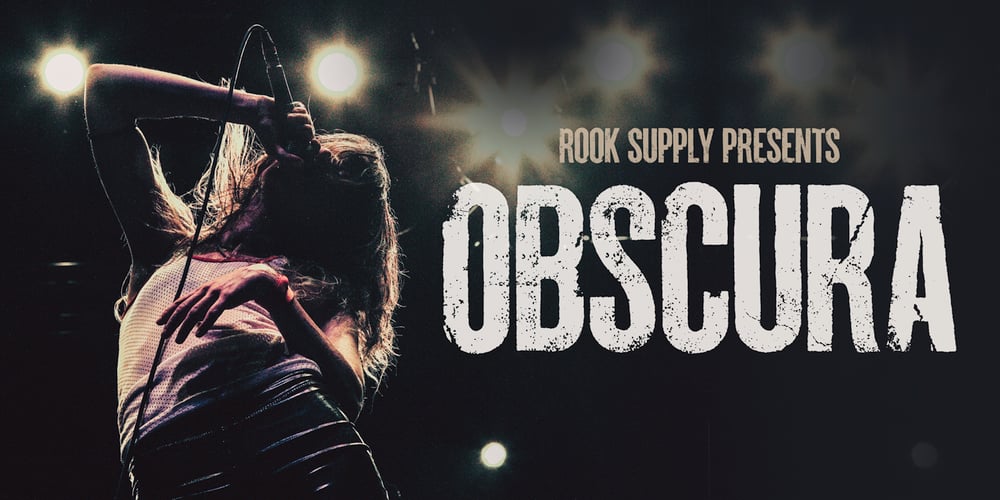
Obscura Font Family was designed by Greg Nicholls and published by Rook Supply. Obscura contains 1 styles and family package options. Obscura is a powerful and gritty grunge font that every designer should have in their font arsenal. Each letter has a ton of rough texture, which will add a whole new layer of detail to your design project and give it a bit more of an modern edge. Try it out for everything from album covers to food labels.